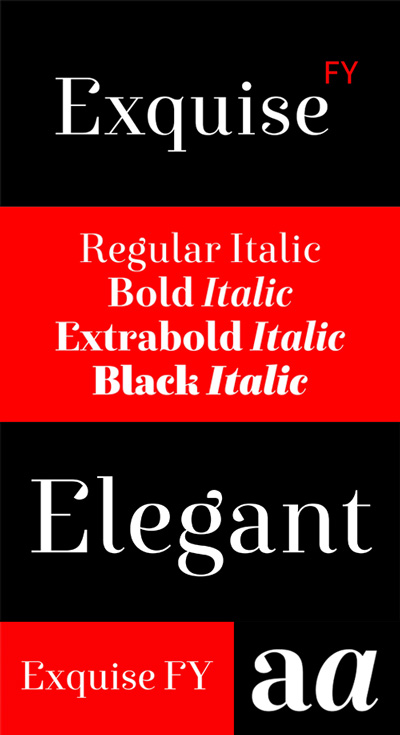
- Exquise FY, an elegant & distinguée 6 fonts family. With its round and elegant shapes, this new didone typeface is developed in six styles, including a “poster” weight. Though inspired by classical thick and thin shapes, Exquise FY’s design is innovative with its sharp drops.